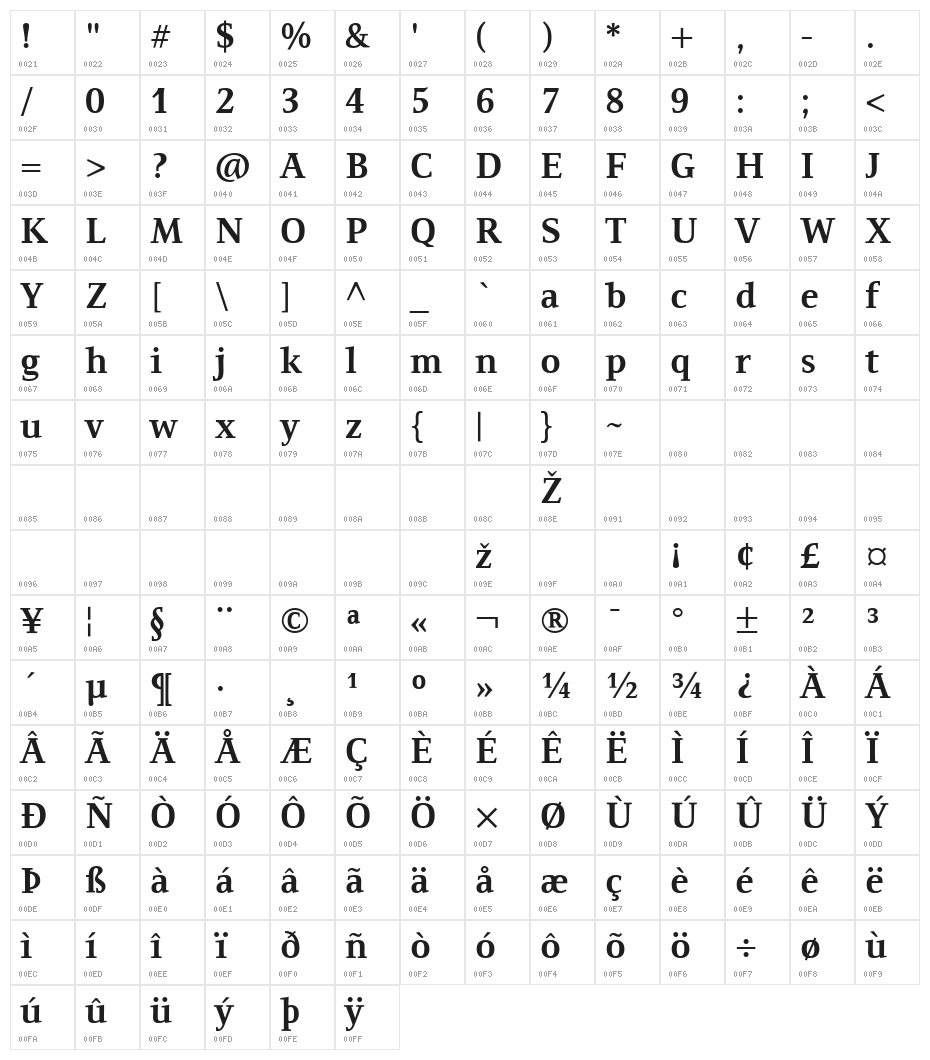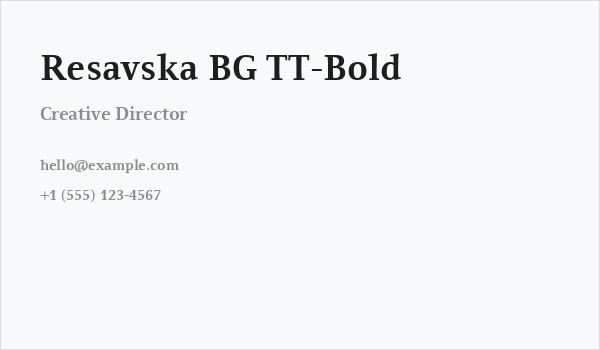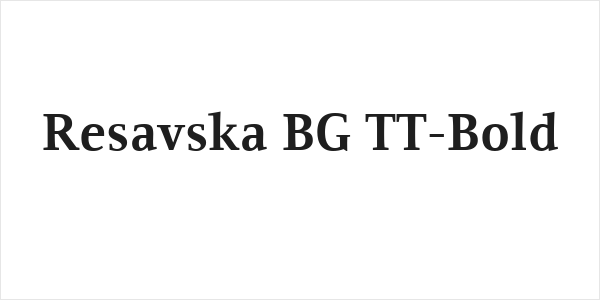
Resavska BG TT-Bold Font
Resavska BG TT-Bold Description
This font exhibits a classic serif style with strong, bold strokes and a traditional appearance. The characters are well-defined with a moderate contrast between thick and thin lines, giving it a robust and authoritative presence. The serifs are pronounced, adding to its formal and timeless aesthetic. The uppercase letters are tall and commanding, while the lowercase letters maintain a consistent and harmonious flow. The numerals are clear and distinct, making them easily readable. Special characters are elegantly integrated, complementing the overall design.
| Use Case | Headlines, Logos, Editorial design |
| Proposed Projects | Ideal for editorial design, book covers, formal invitations, and branding projects that require a traditional and authoritative look. |